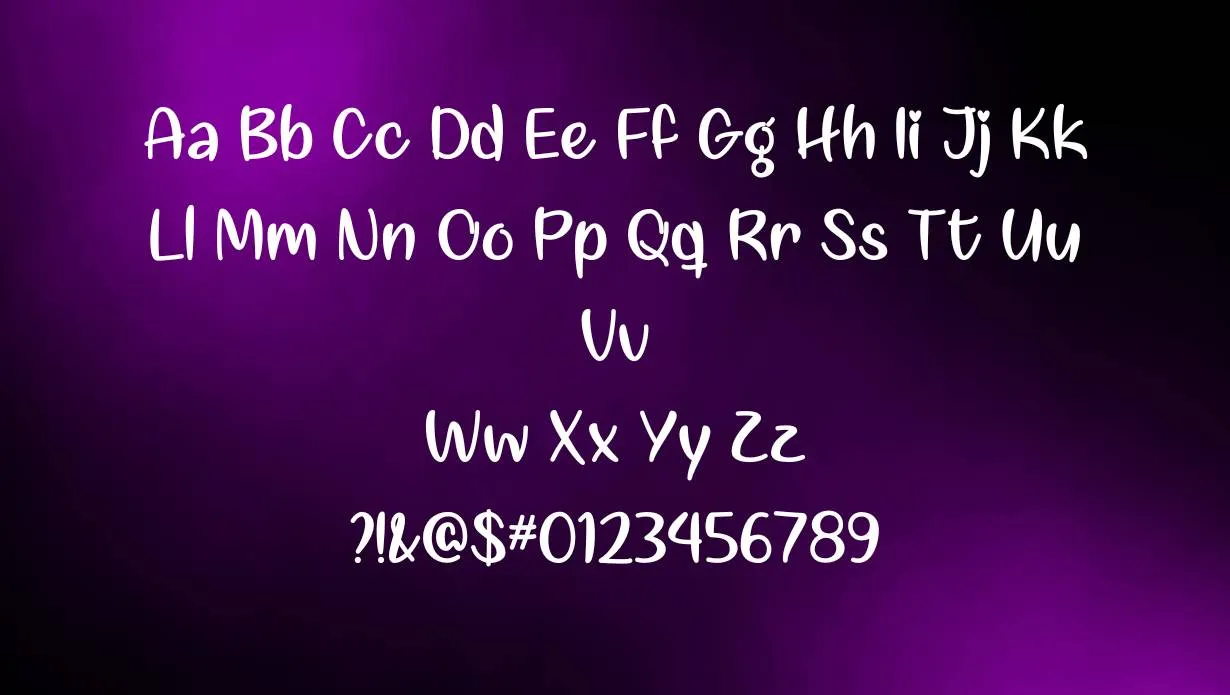
The Liebe Finden font whispers softly for your words. Its gentle and flowing design is ideal for crafting romantic love notes, creating wedding invitations, or infusing a hint of warmth into your personal messages.
This font has a lightweight and standard width, ensuring your words appear delicate and inviting. Imagine using Liebe Finden for a heartfelt letter, turning your text into a sweet serenade of affection.